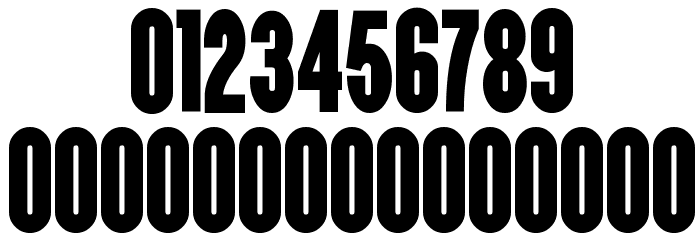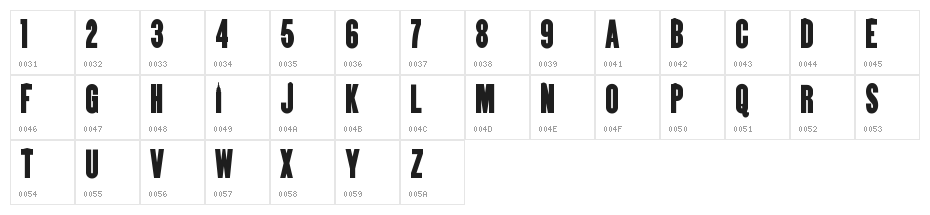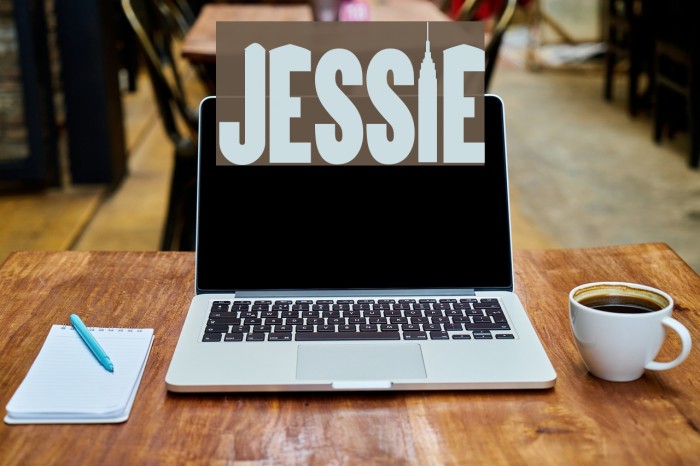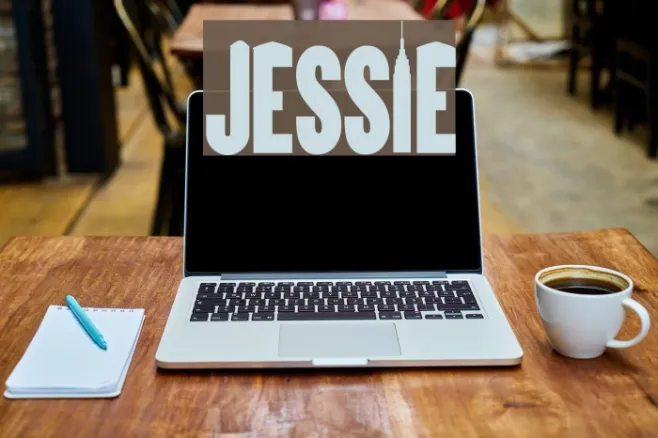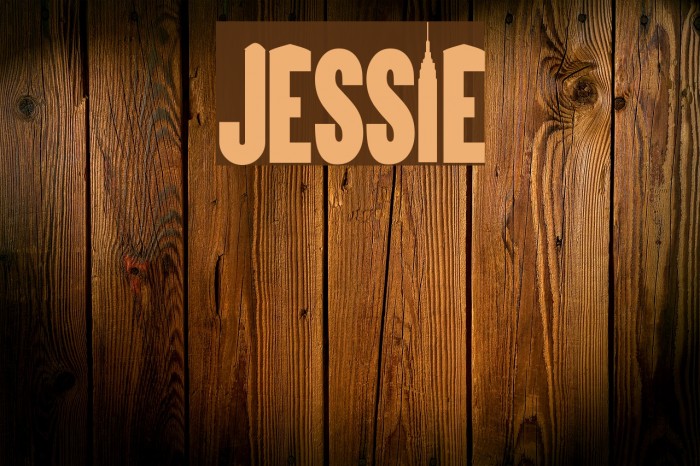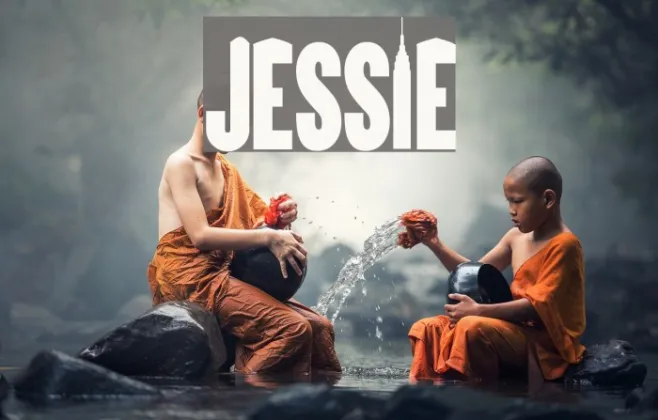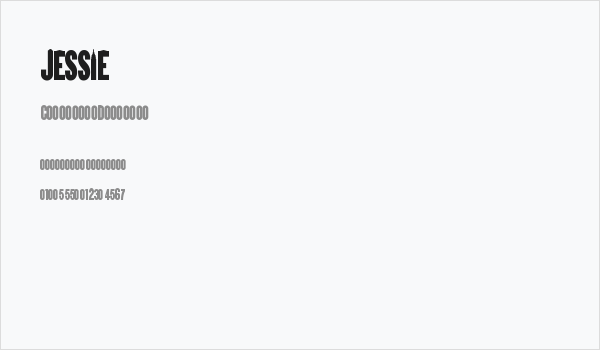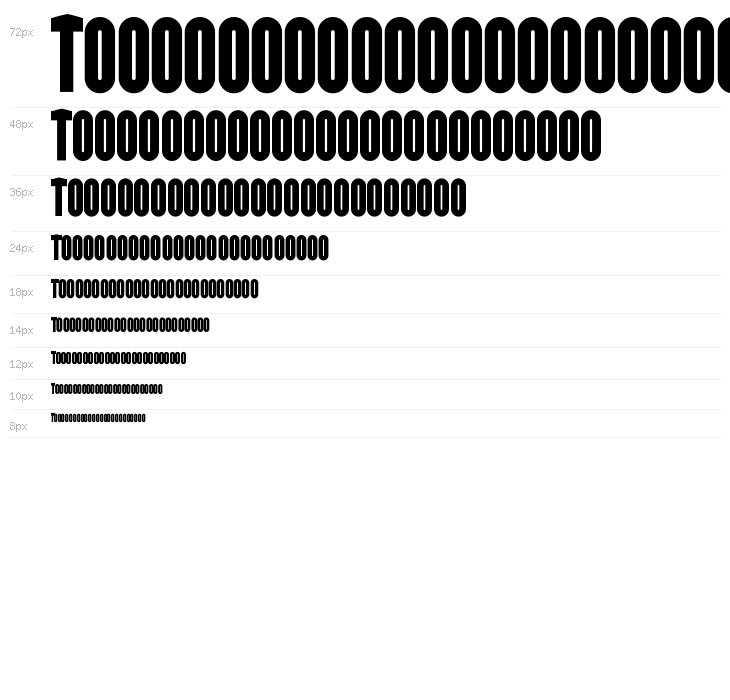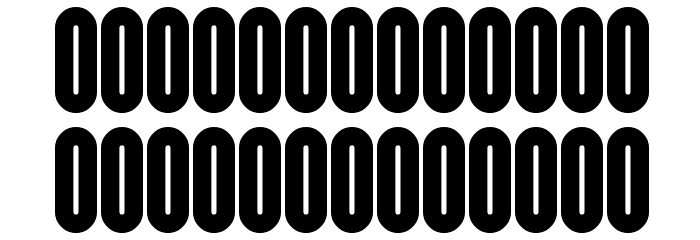
JESSIE Font
JESSIE Description
This font features bold, uppercase letters with a strong, impactful presence. The characters are tightly spaced, creating a cohesive and unified appearance. The font's design is modern and assertive, making it ideal for attention-grabbing headlines and titles. The uniform stroke weight across all characters contributes to its bold and powerful aesthetic. The absence of serifs and the clean lines give it a contemporary feel, suitable for various design projects that require a commanding and straightforward typeface.